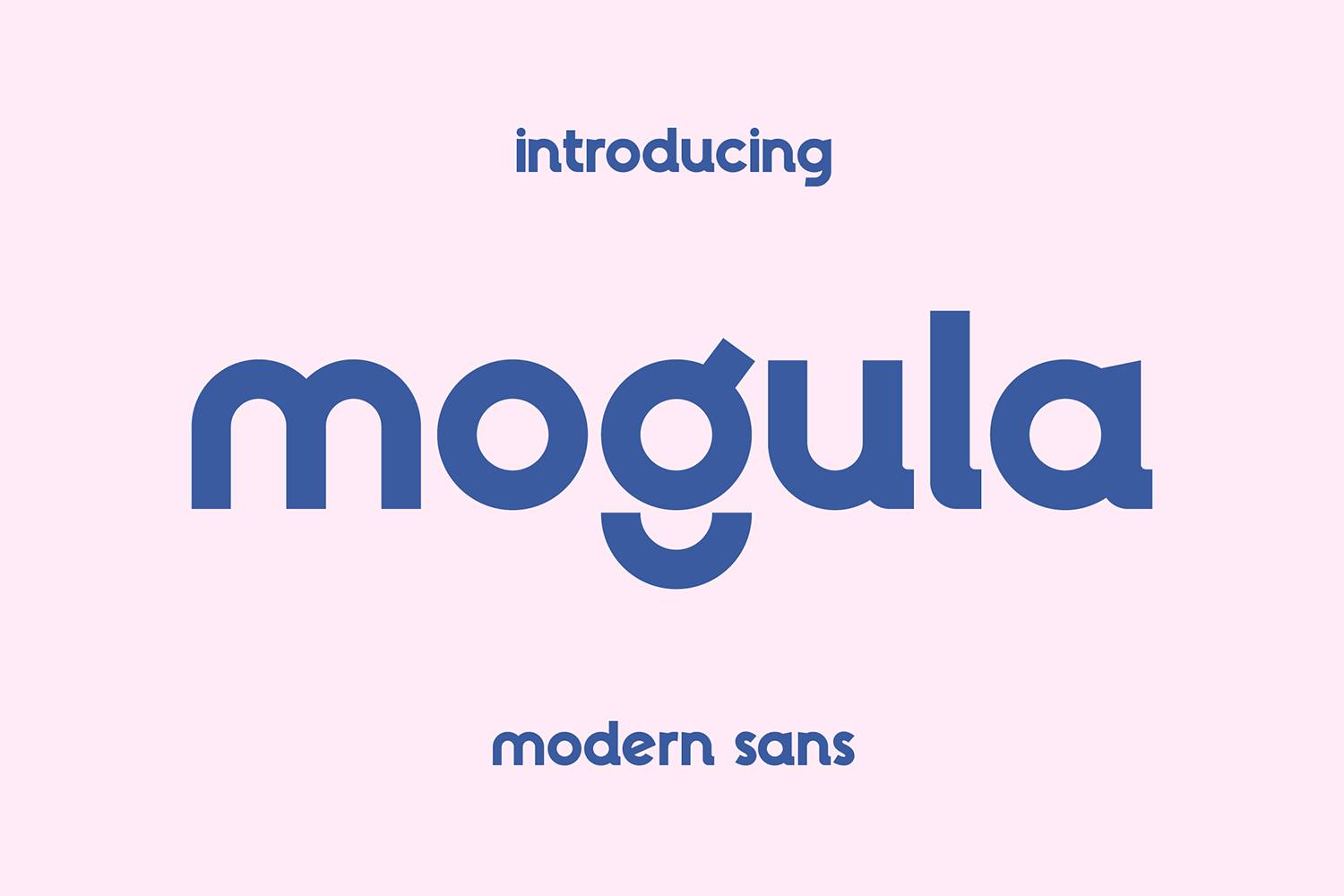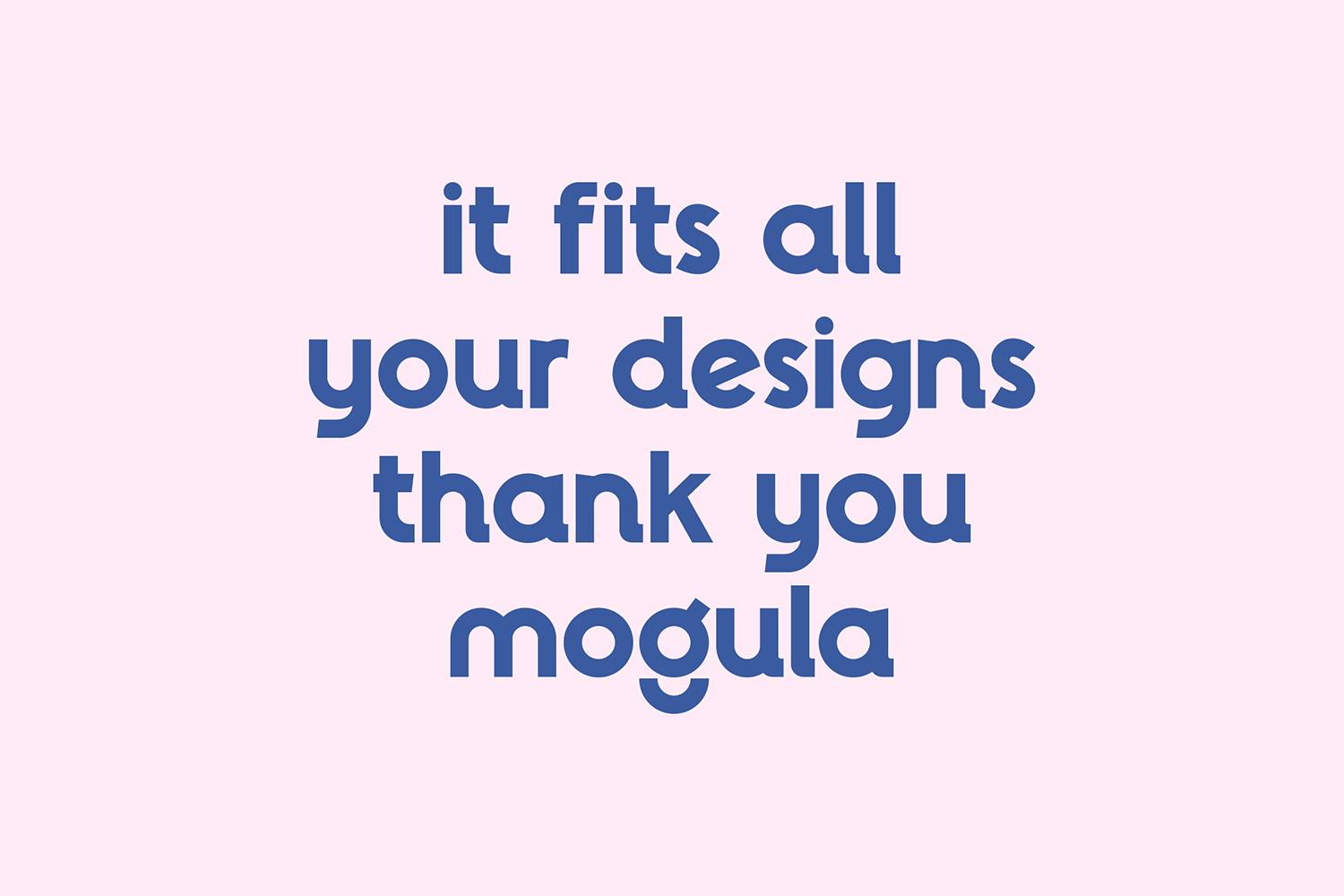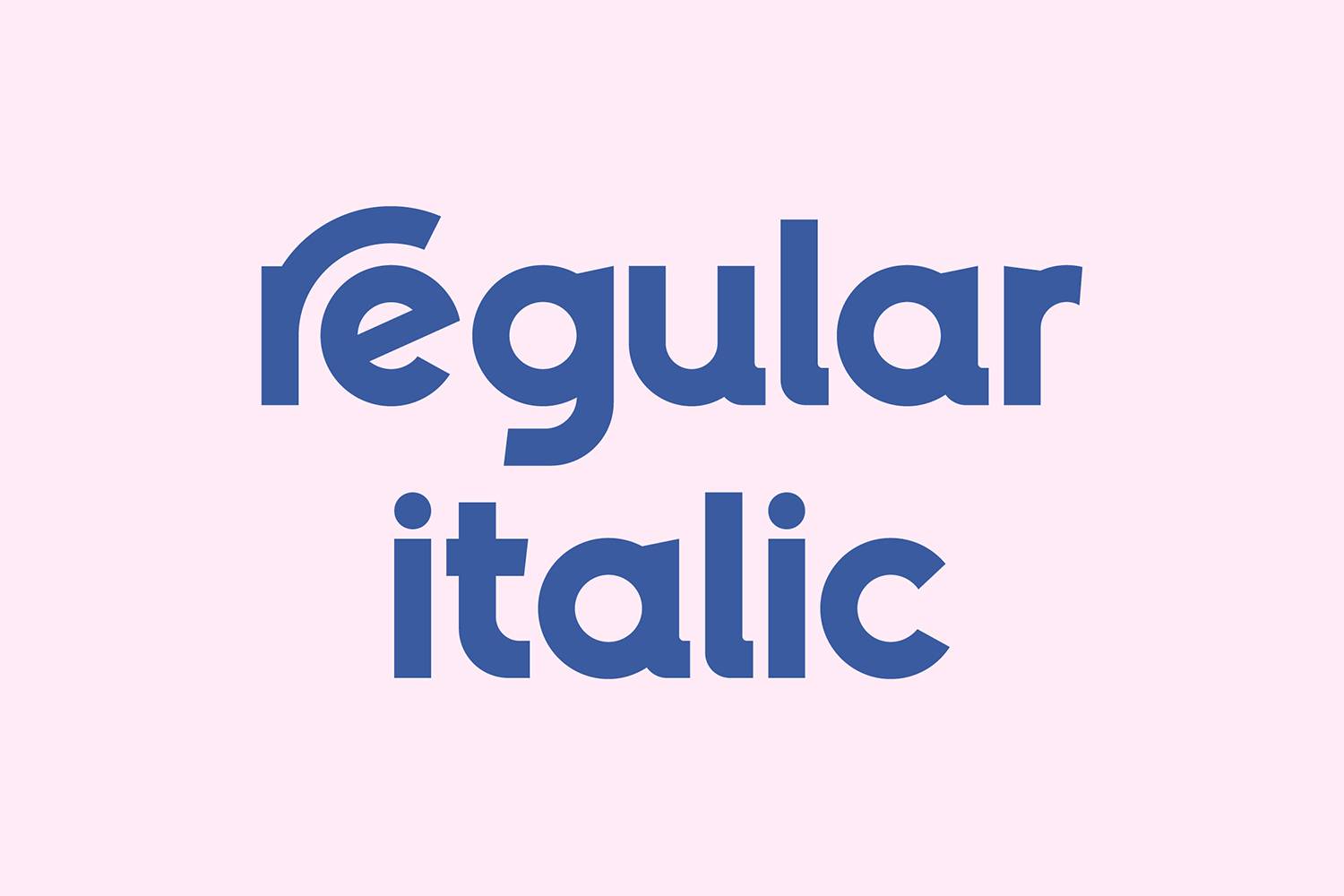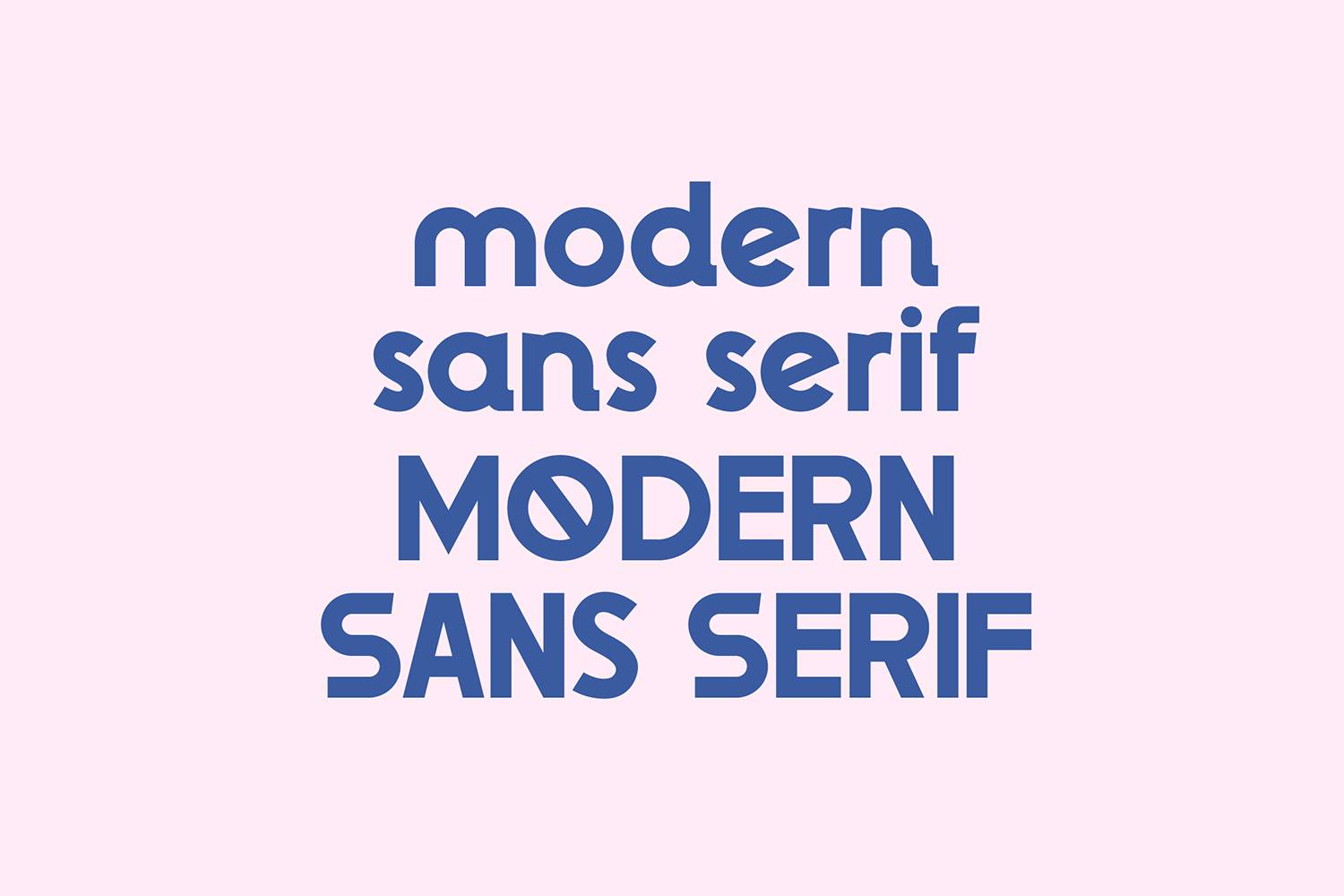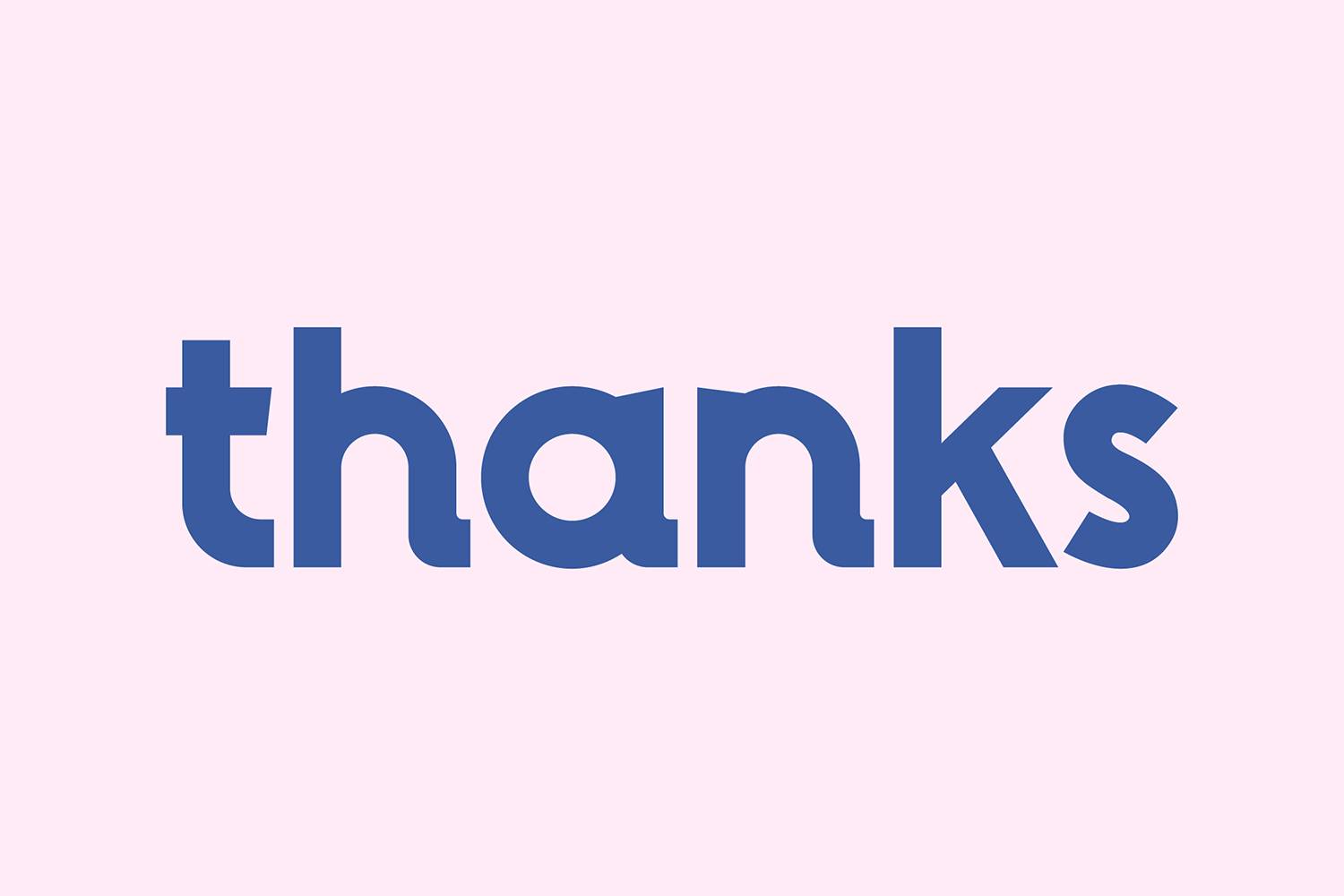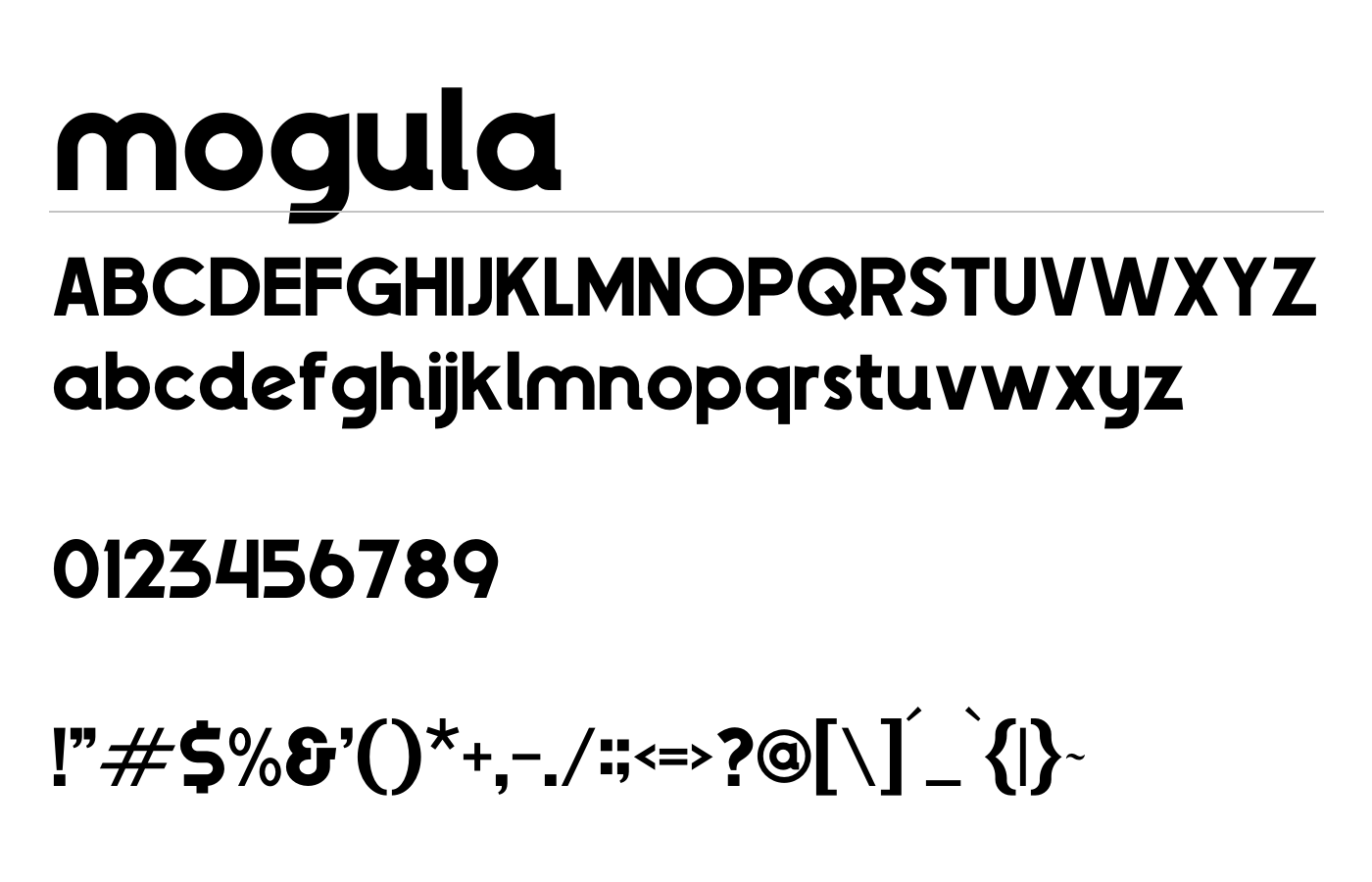
Mogula is a bold, geometric sans serif font with a modern and clean appearance, characterized by its uniform stroke weight and rounded letterforms. Its playful yet professional style makes it ideal for branding, headlines, and packaging where a strong, approachable impact is needed. This font works well in both digital and print design, offering excellent readability with a contemporary vibe.
Mogula Font
About Mogula Font